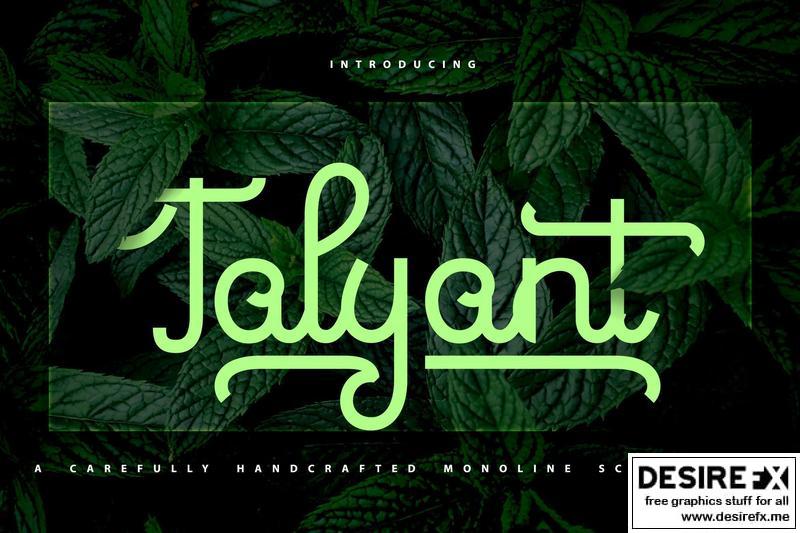
Talyant | Handcrafted Monoline Script Font MLPL2RZ
Talyant | Handcrafted Monoline Script Font with a calligraphy style, So beautiful on invitation like greeting cards, branding materials, business cards, quotes, posters, and more!
• Tons of glyphs
• Alternates and Ligatures
• Punctional
• Fonts include Multilingual Support